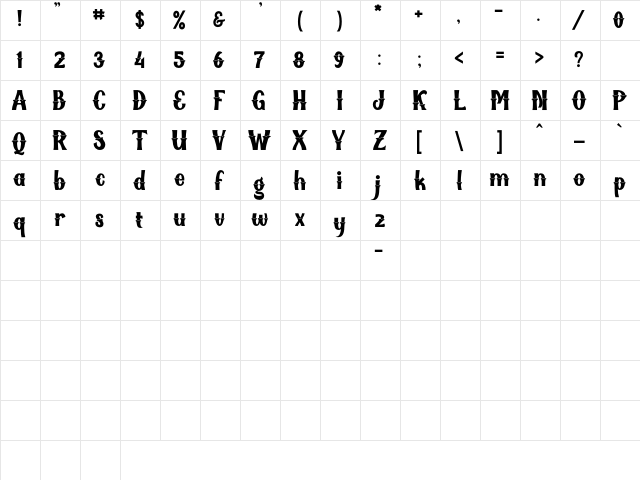
QallΧro Vintage Demo Regular Font Preview
QallΧro Vintage Demo Regular
Design Context for QallΧro Vintage Demo Typeface
QallΧro Vintage Demo wears its vintage influences proudly, with letterforms that recall mid-century signage, classic packaging, and nostalgia-driven design.
Font Pairing: Combine QallΧro Vintage Demo with a simple slab or neutral sans — period-accurate companions reinforce the vintage feel without competing for attention.
Pro Tip: Use QallΧro Vintage Demo for headlines and pull quotes rather than body copy — its personality is best appreciated in short, focused bursts.